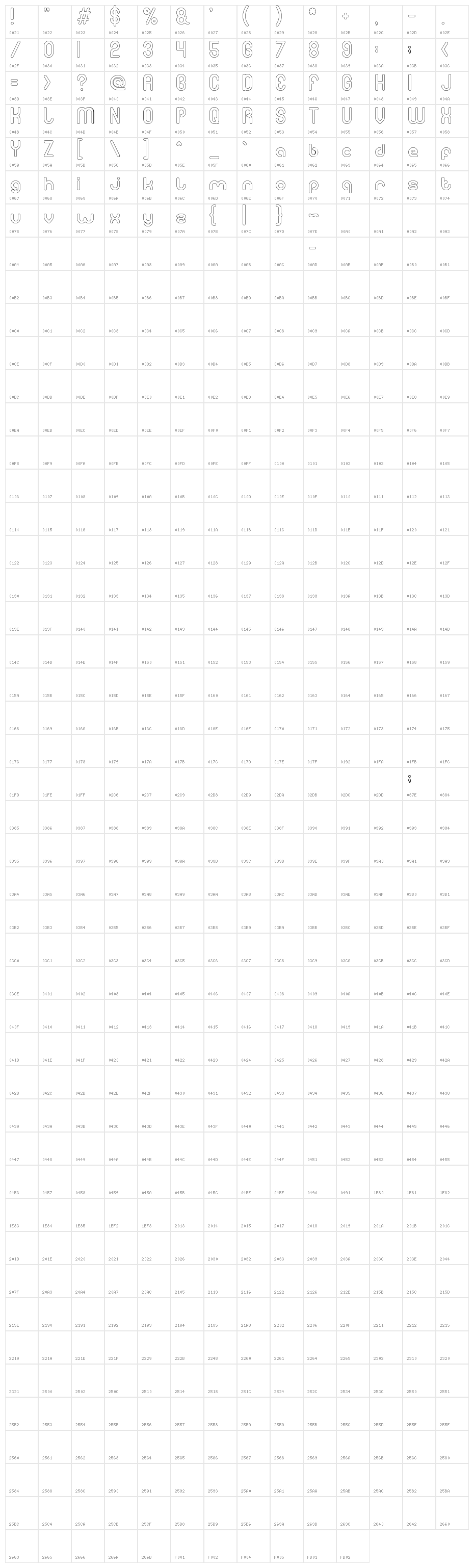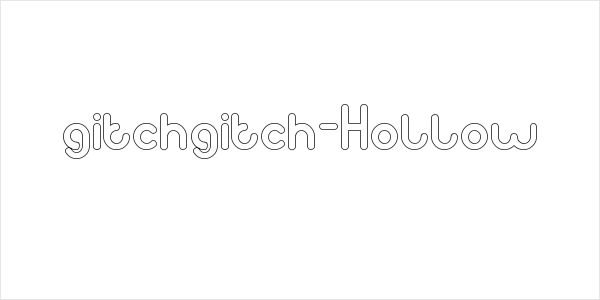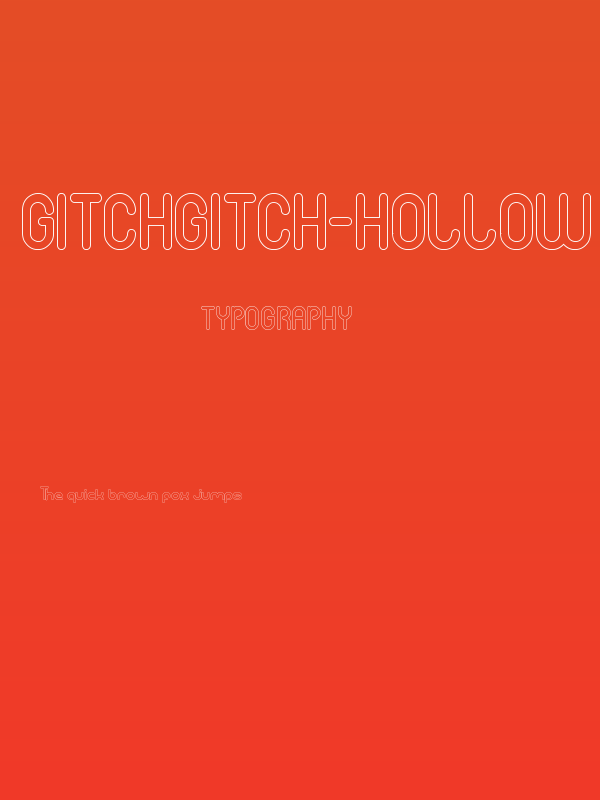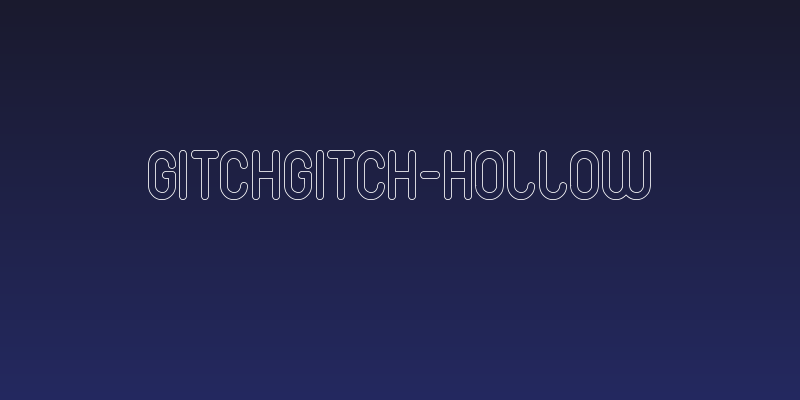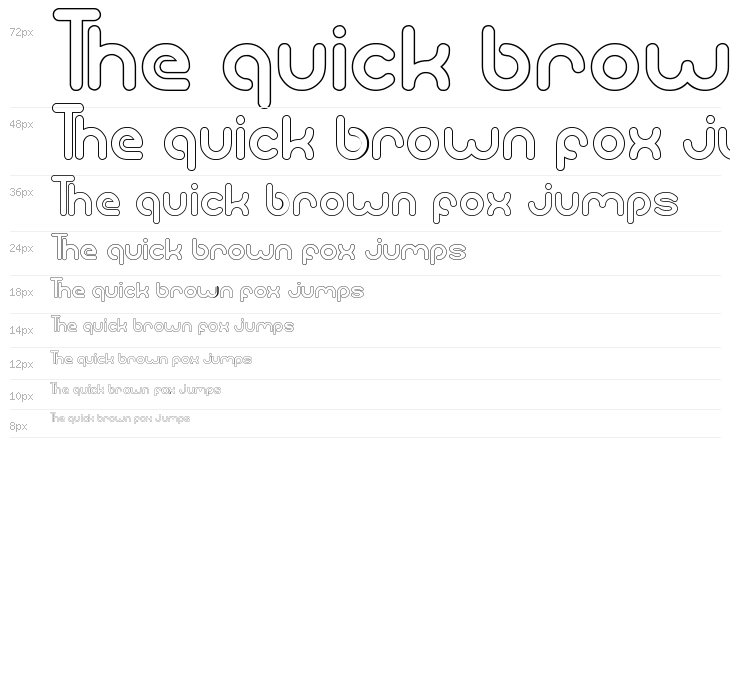
gitchgitch-Hollow Font
gitchgitch-Hollow Description
This font features a hollow, outlined style that gives it a modern and playful appearance. The characters are rounded and smooth, with consistent line thickness throughout. The uppercase and lowercase letters maintain a uniform height, contributing to a cohesive look. The numerals and special characters are designed to match the overall aesthetic, ensuring visual harmony across all elements. This font's open and airy design makes it suitable for projects that require a light and approachable feel.
| Proposed Projects | Ideal for branding, posters, children's books, and playful design projects. |